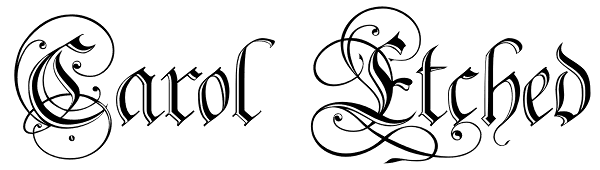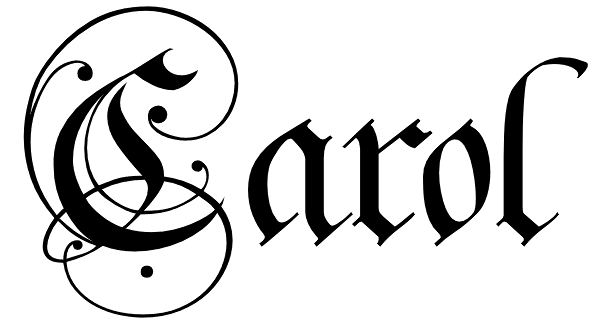
Carol
The Carol family are decorated faces and can be used in any application calling for a 19th century engraved style. The 'extra' face allows decorated frames to be made and includes some titles such as Dr. Mrs. Mr etc. It is also possible to create 2...
Carol Etched
Carol Extras
Carol Overlay
Carol Simple
Carol